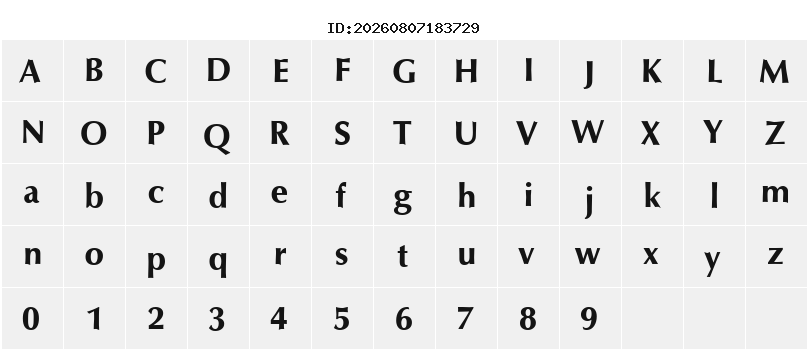
O801-Flare Preview
• Font Name: O801-Flare
• Full Font Name: O801-Flare-Bold
• Designer: SoftMaker Software GmbH
• Manufacturer: SoftMaker Software GmbH
About O801-Flare.ttf
O801-Flare.ttf is a modern, elegant sans-serif font designed for ultimate readability and visual harmony. Perfect for branding, headlines, web design, and print materials.